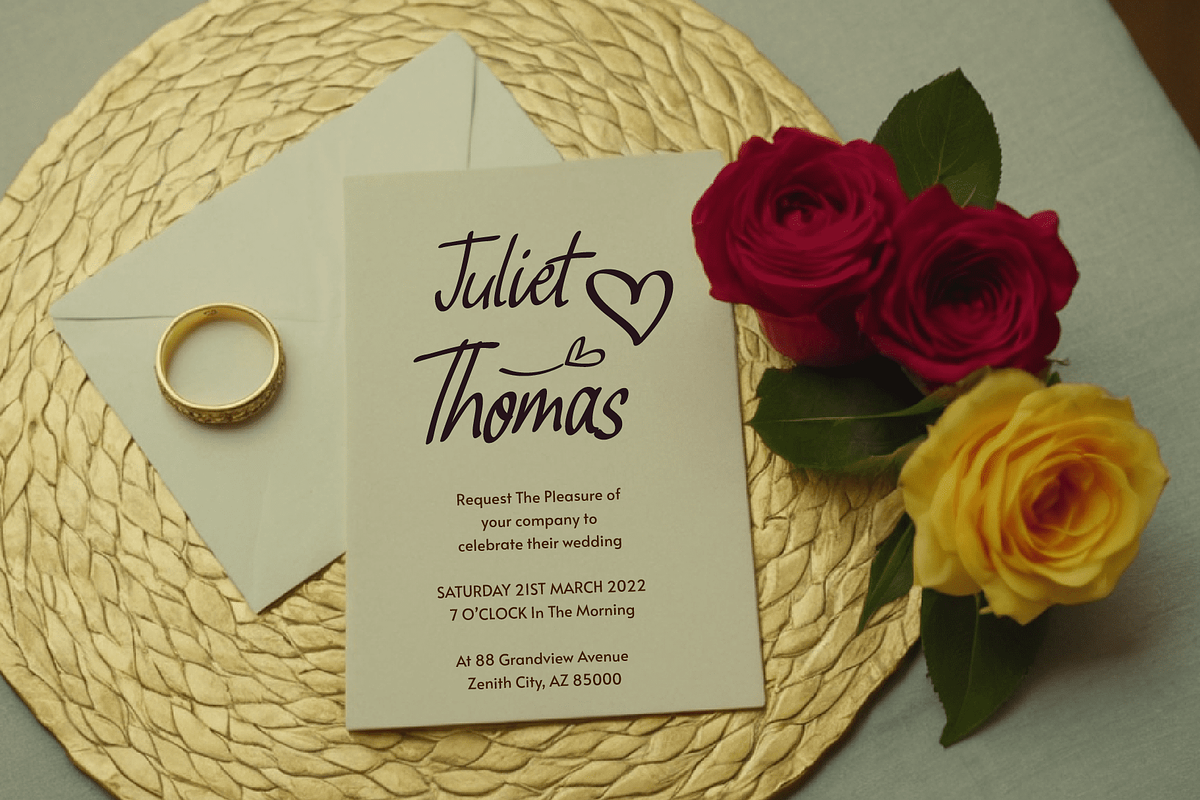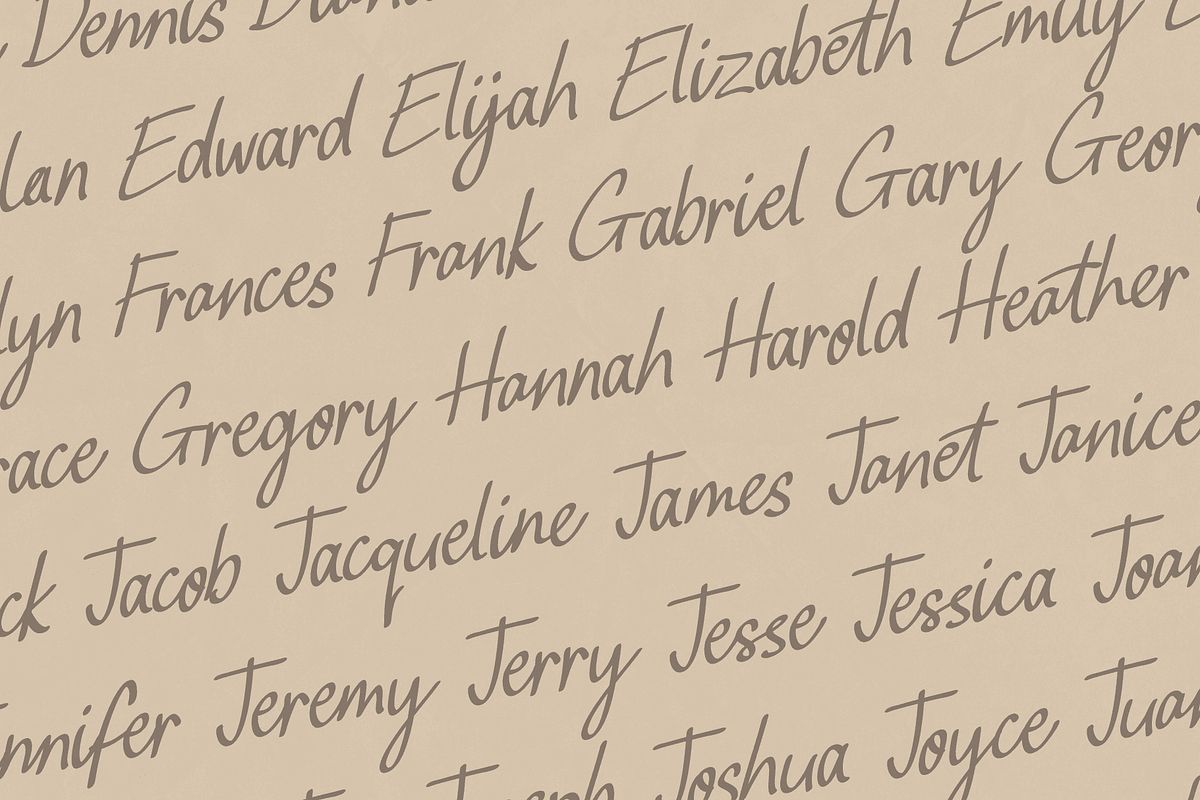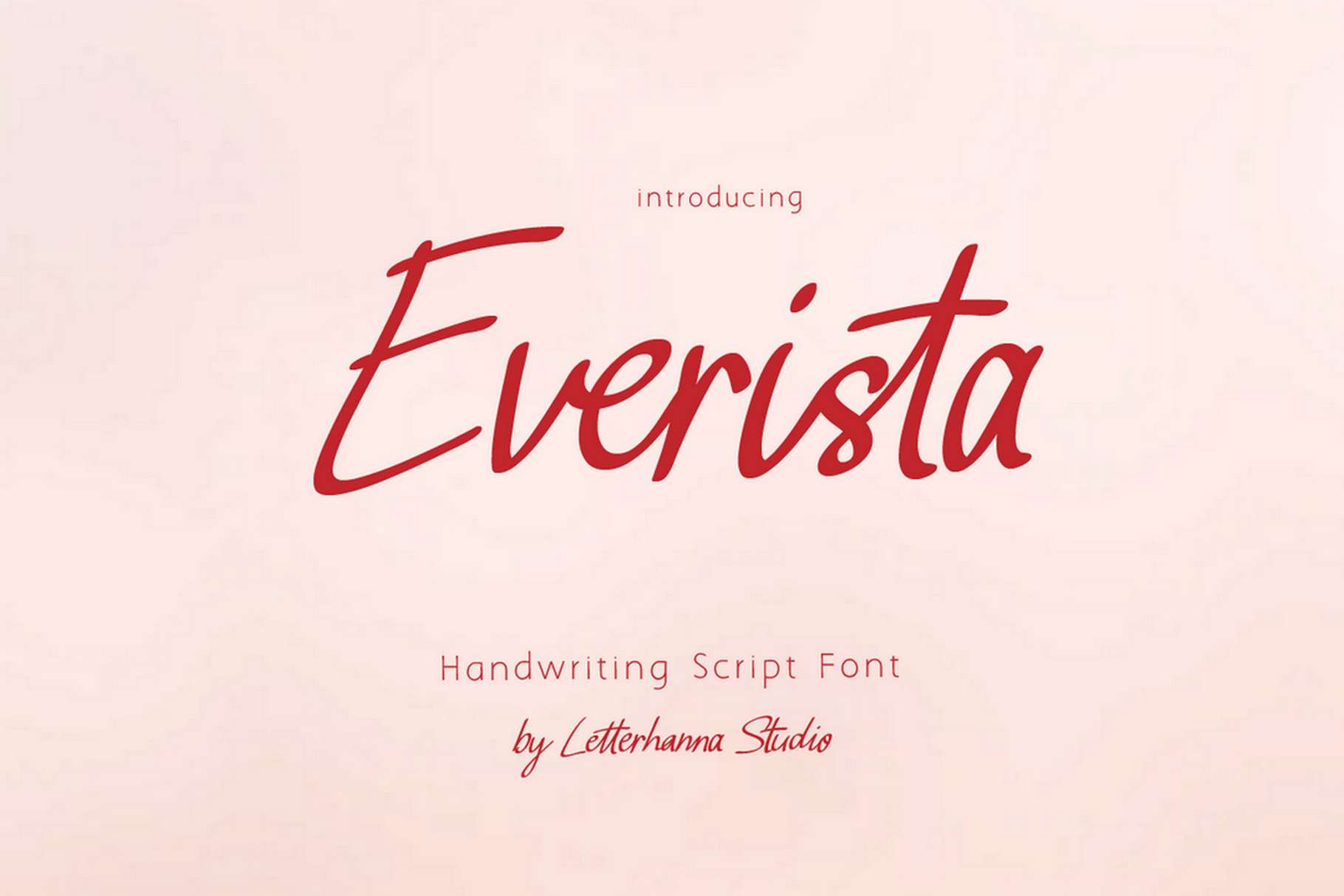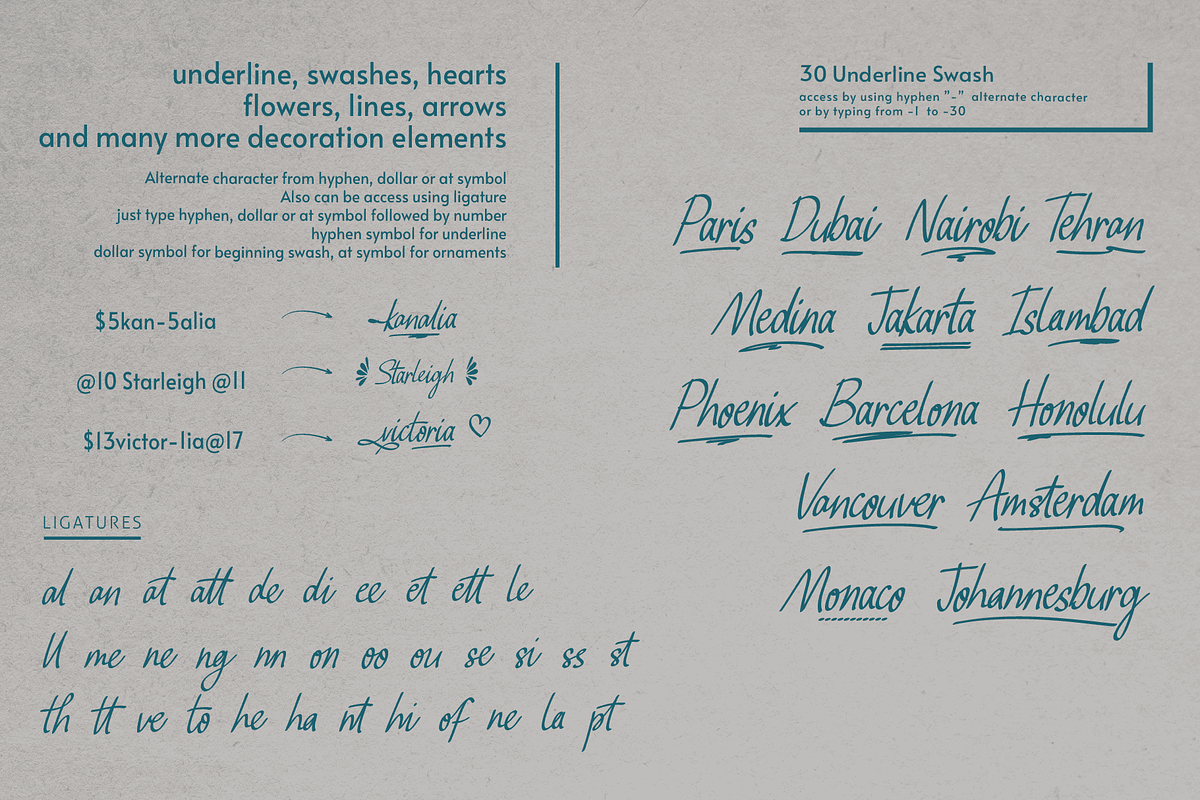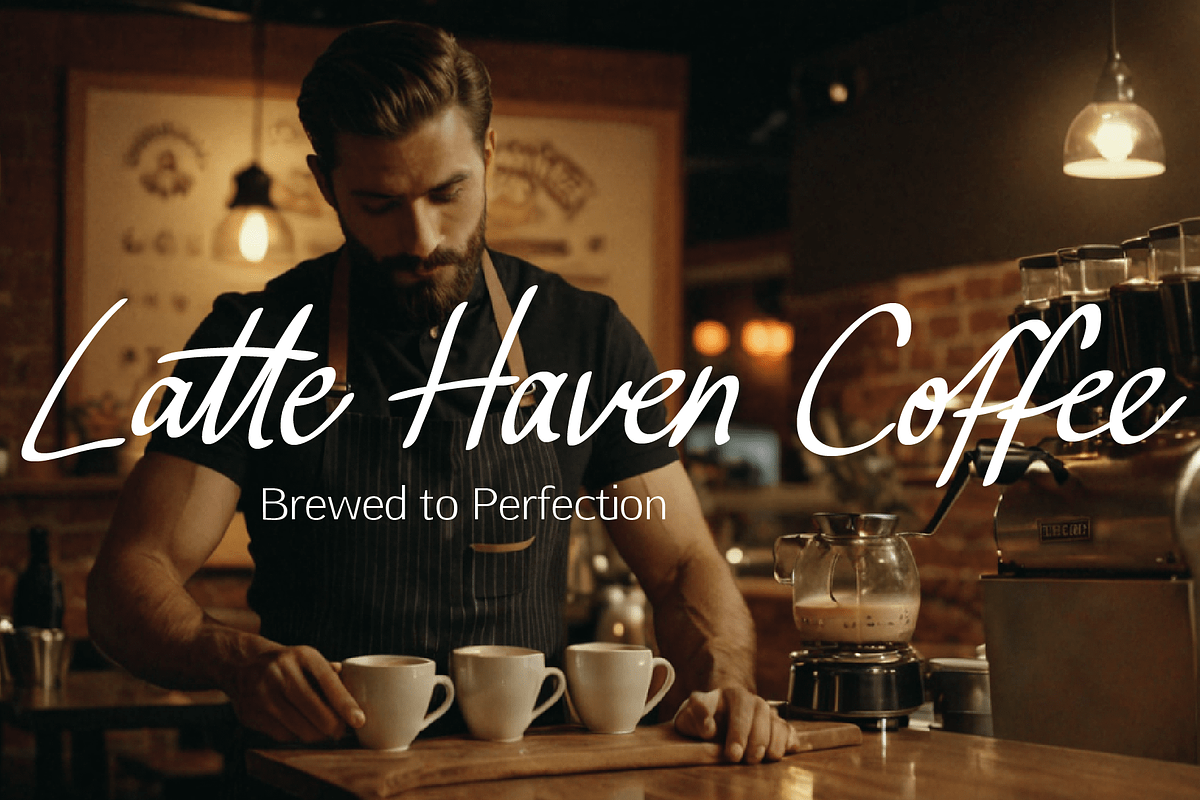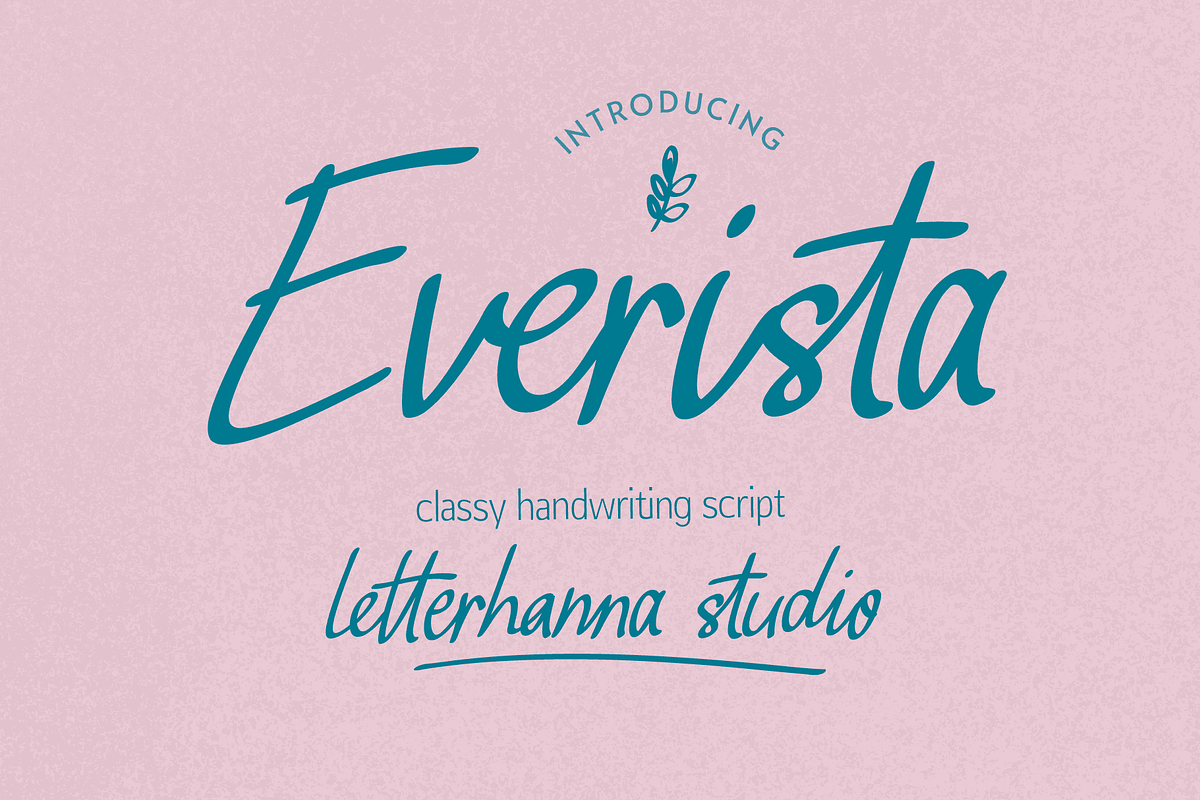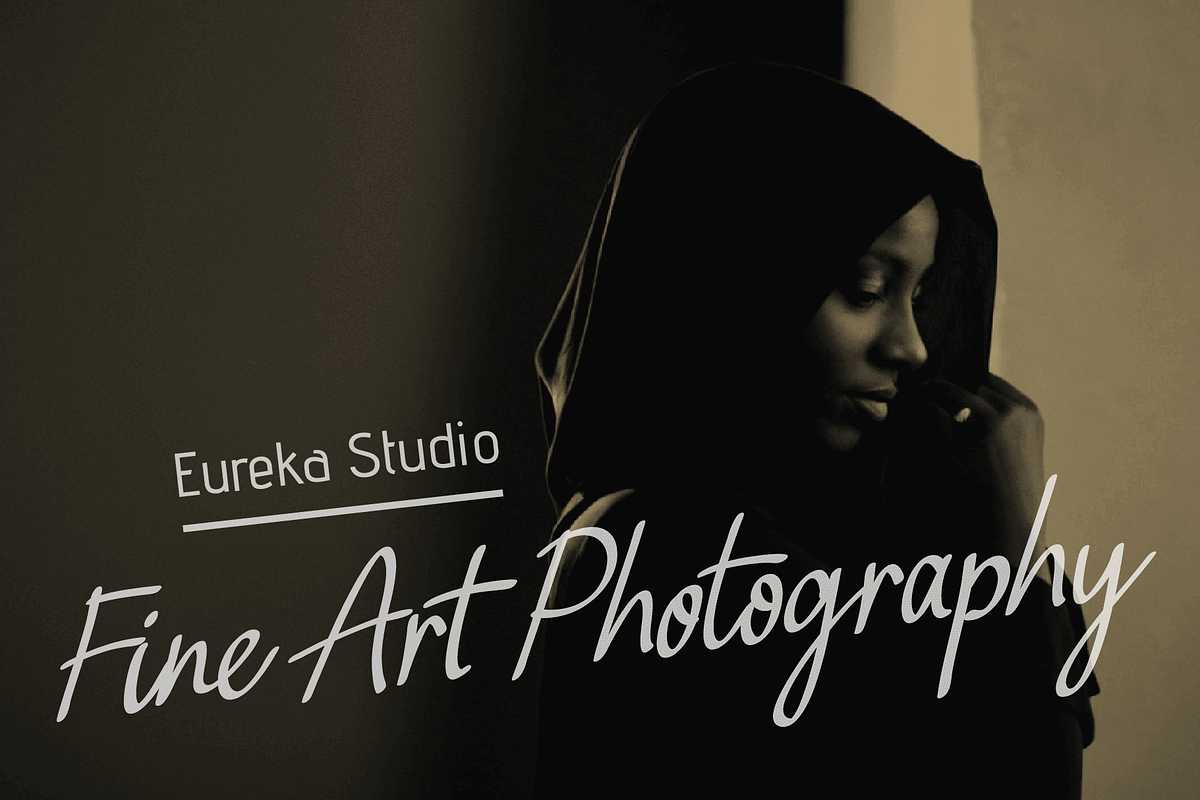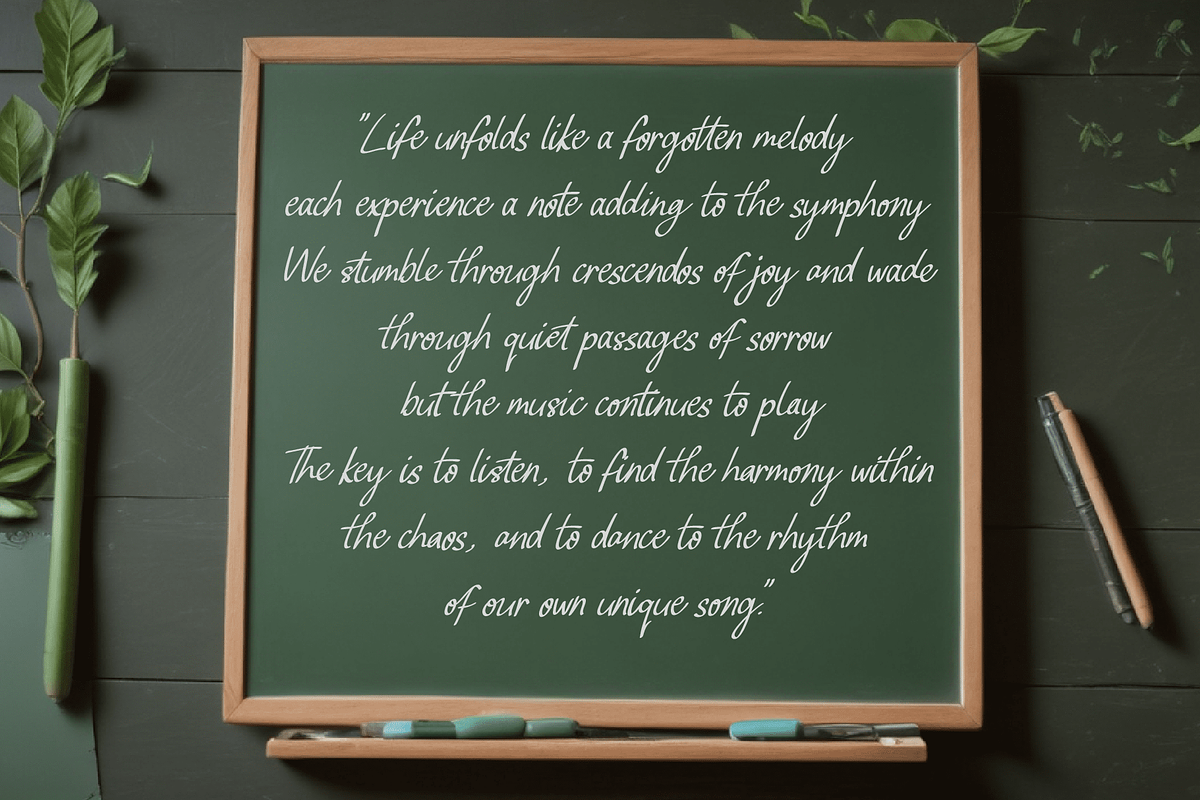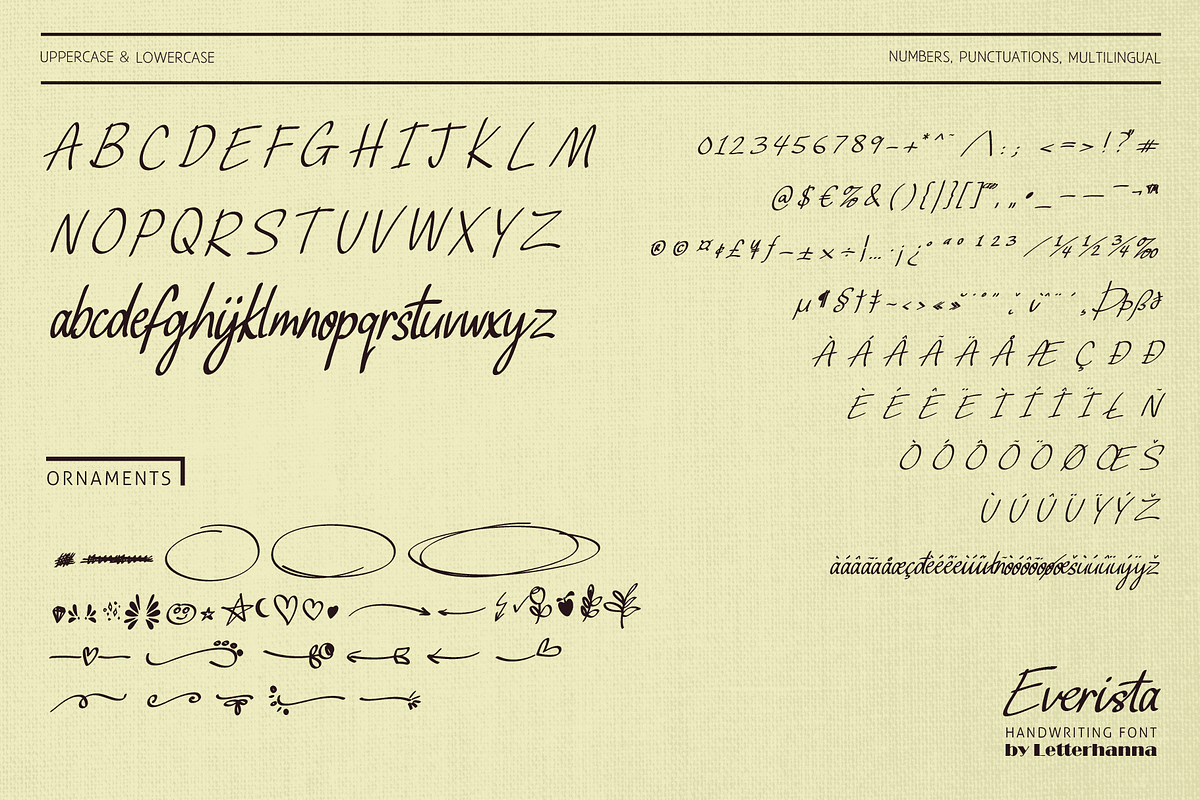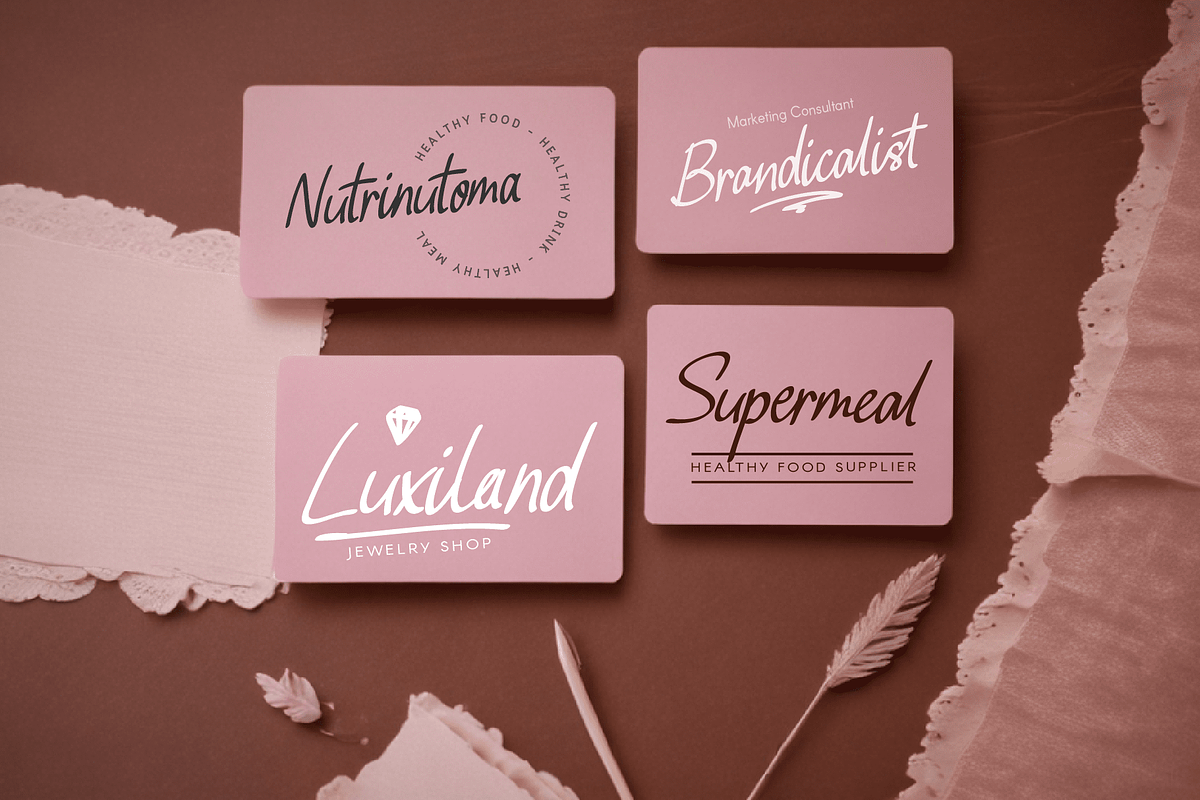
Everista Classy Script Font
Introducing Everista, a refined script font that radiates timeless elegance and sophistication. With its graceful curves and flowing strokes, this font captures the essence of classic beauty, making it perfect for luxury branding, wedding invitations, and high-end packaging. Each letter is meticulously crafted to create a seamless and polished look, adding a touch of sophistication to any project.
Designed for those who appreciate fine details, Everista blends modern charm with classic script artistry. Whether used for logos, stationery, or editorial designs, its effortless grace and stylish presence make every word feel exquisite. Elevate your typography with a font that embodies class, refinement, and timeless appeal.
Easy Access to Glyphs and Swashes
Accessing Swashes and Ornaments
Underline Swashes: Use a hyphen symbol "-" followed by a number between 1 and 30. For example, type "-3", "-22", or "-17" to get various underline swashes. Head/Beginning Swashes: Use a dollar sign "$" followed by a number between 1 and 9. For example, type "$2" or "$8" to get different head/beginning swashes. Ornaments: Use an "at" symbol "@" followed by a number between 1 and 26. For example, type "@4" or "@13" to get different ornaments.
PUA Encoding for Ease of Use, which means you can access all the glyphs and swashes with ease!
Uppercase and lowercase letters Numbers and punctuation marks Multilingual support Ligatures Underline swashes Ornaments Easy access to swashes using ligatures